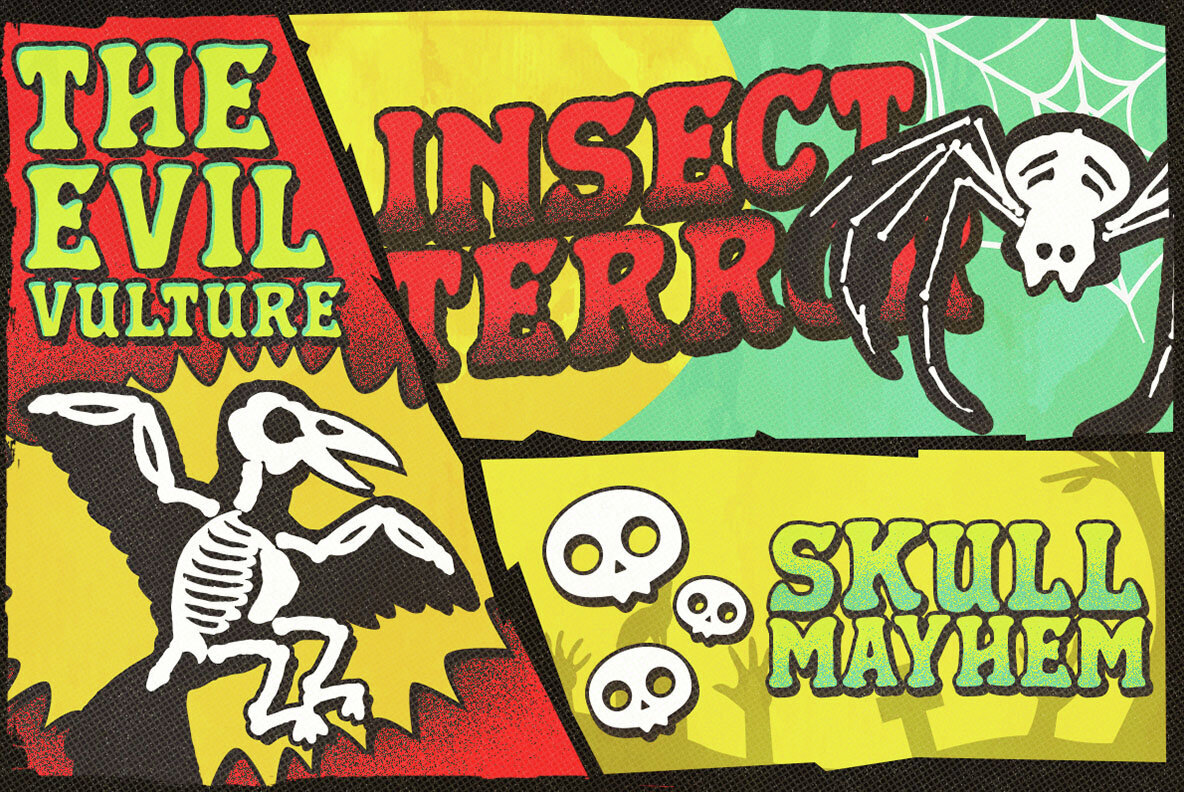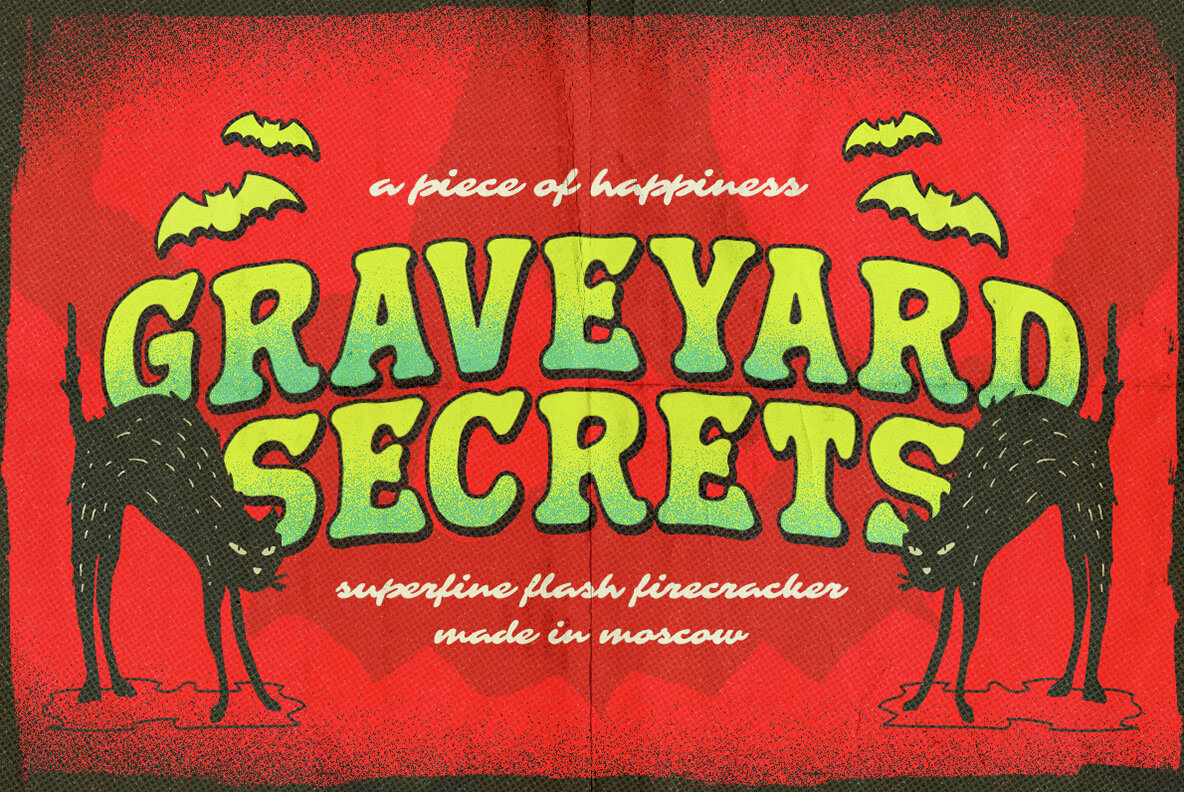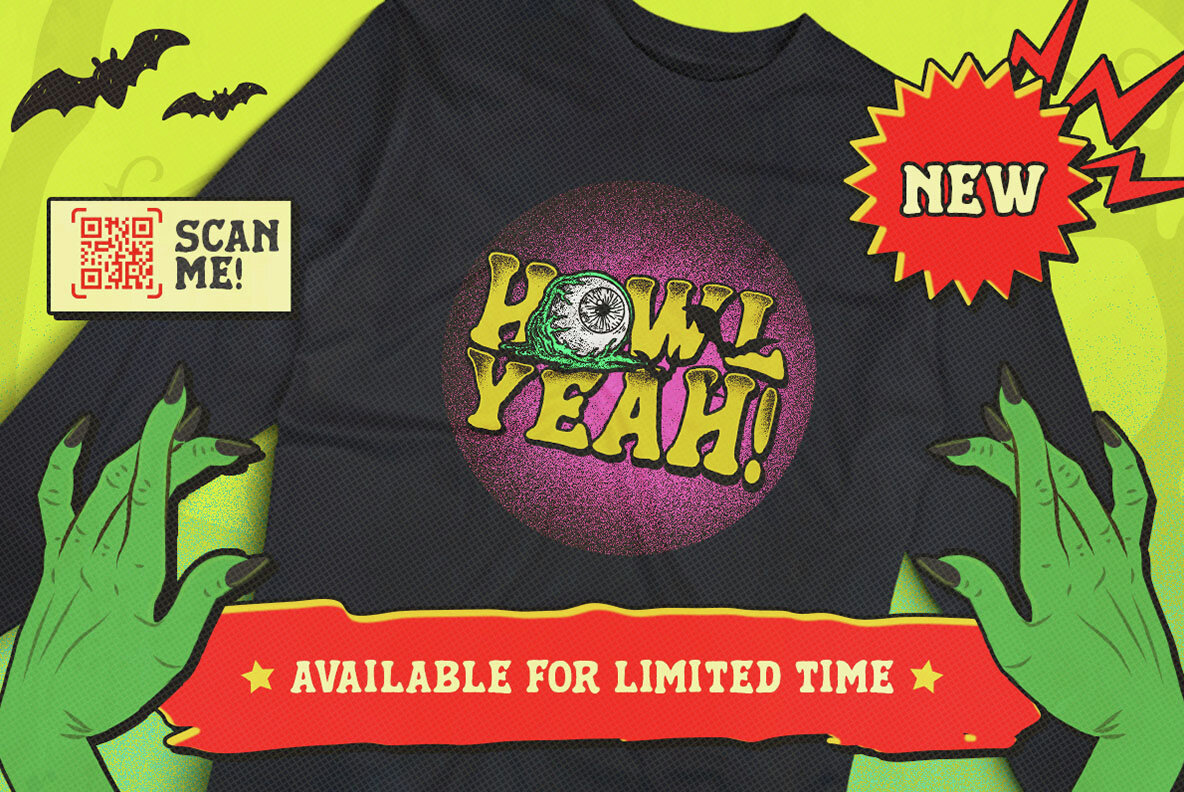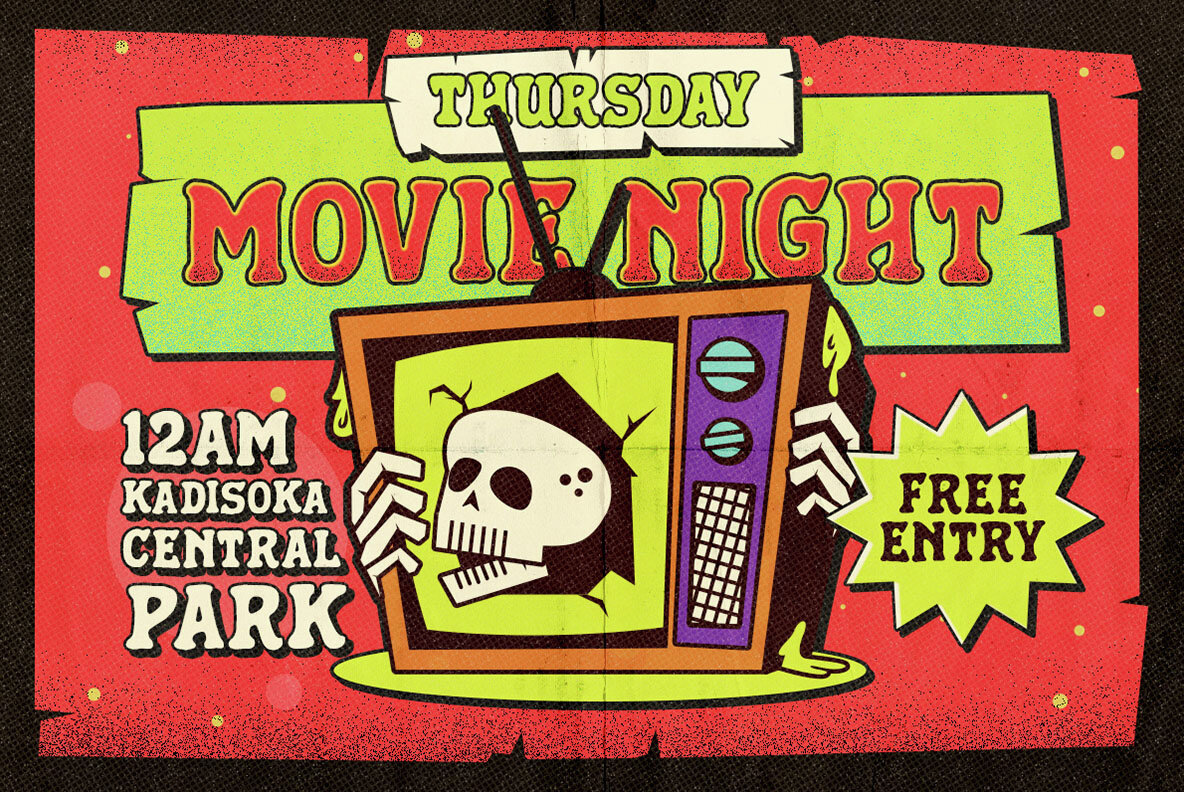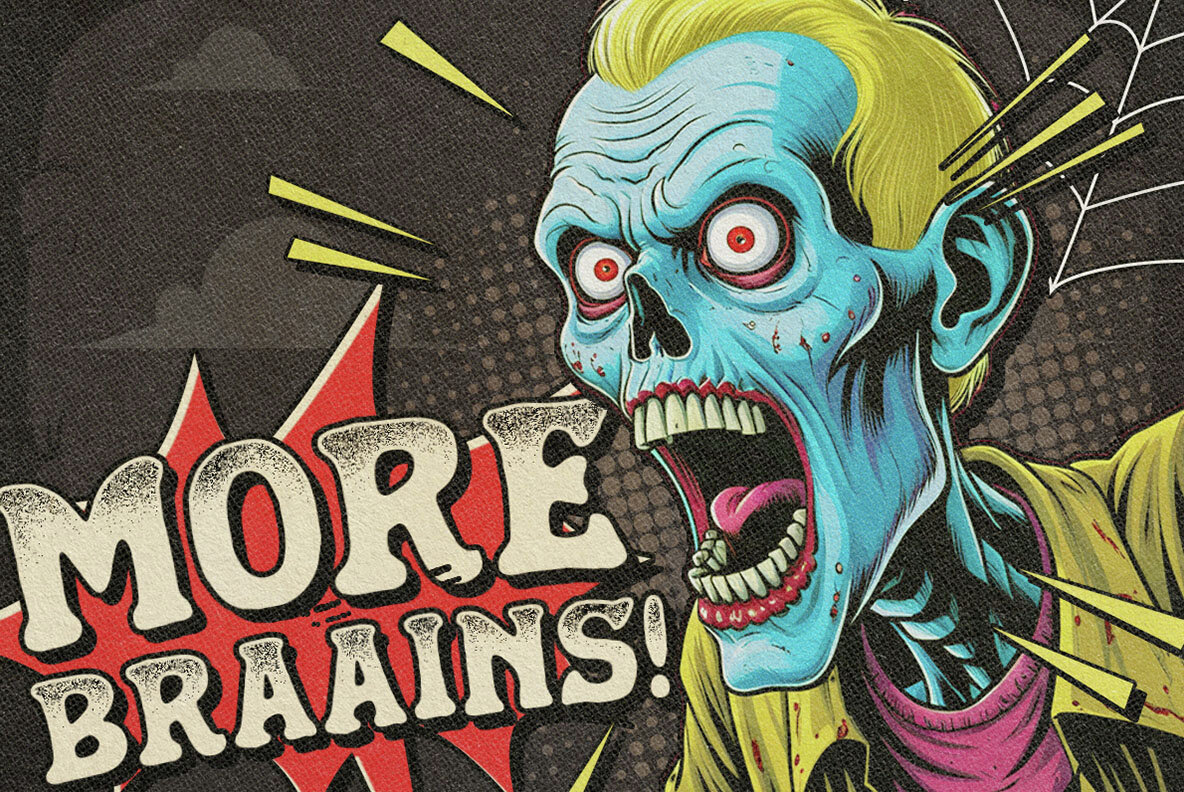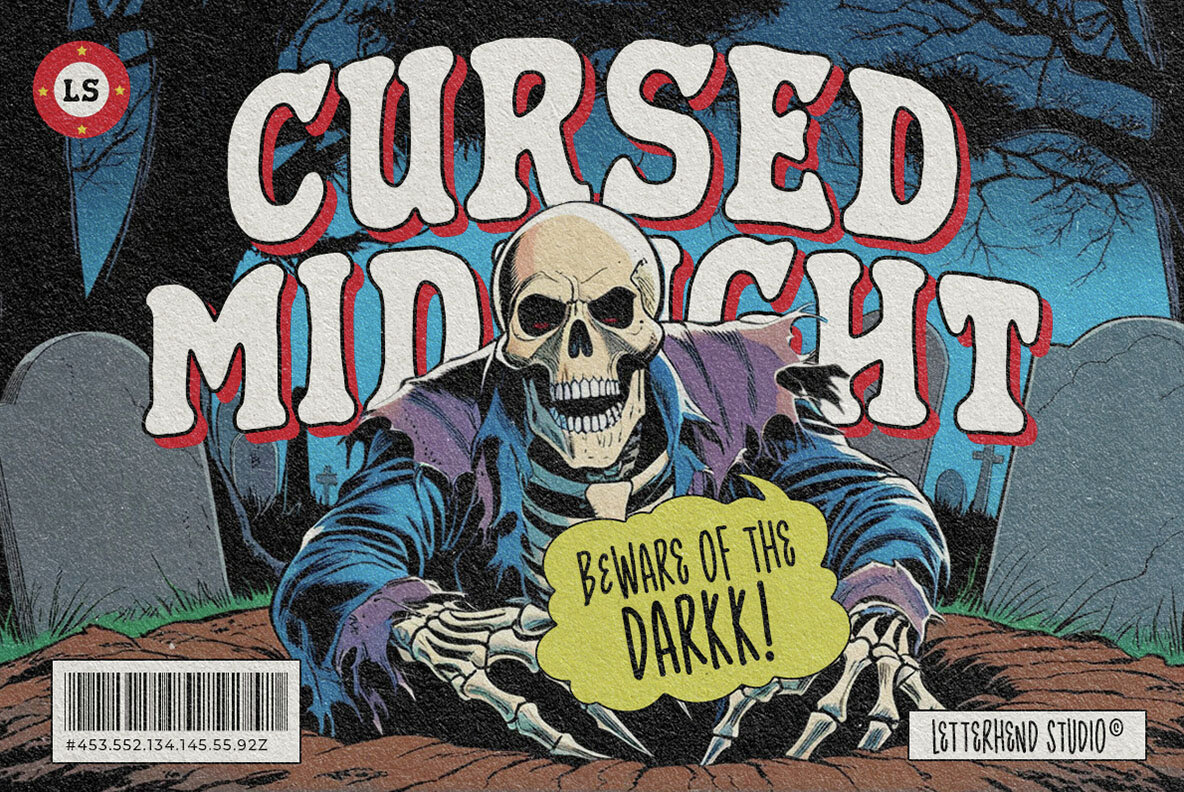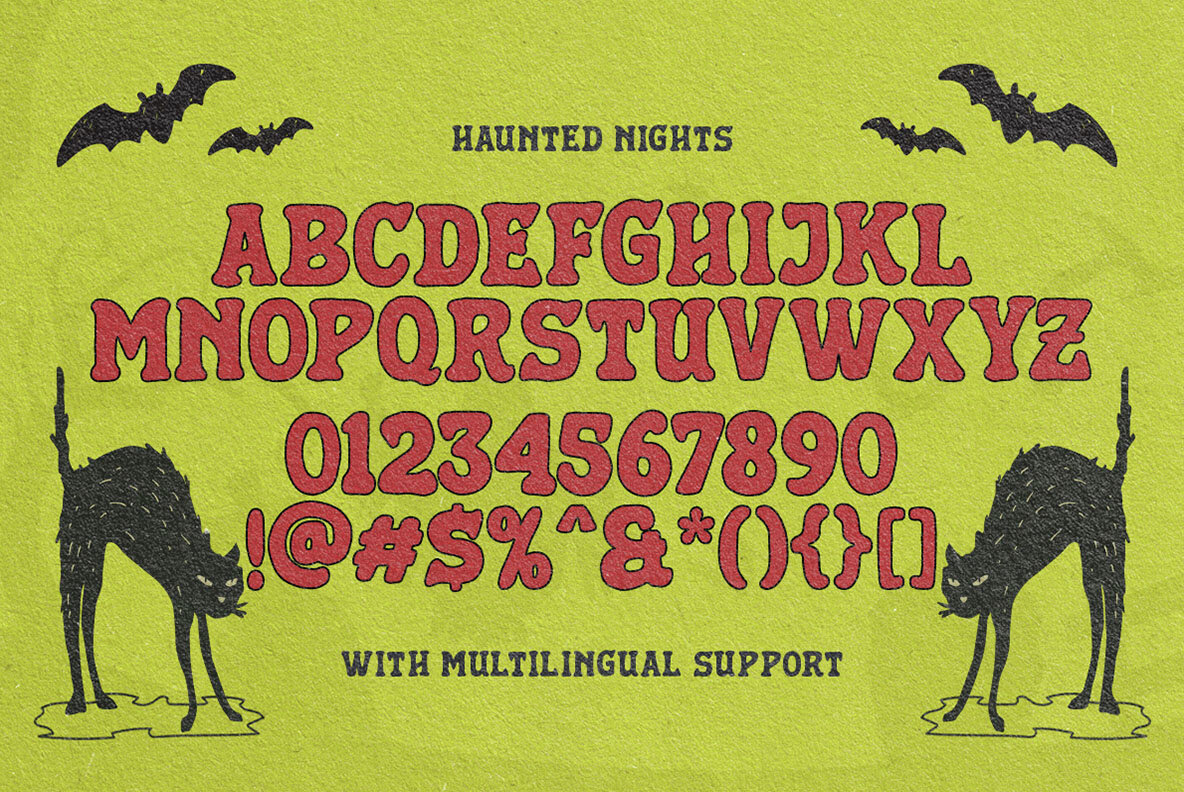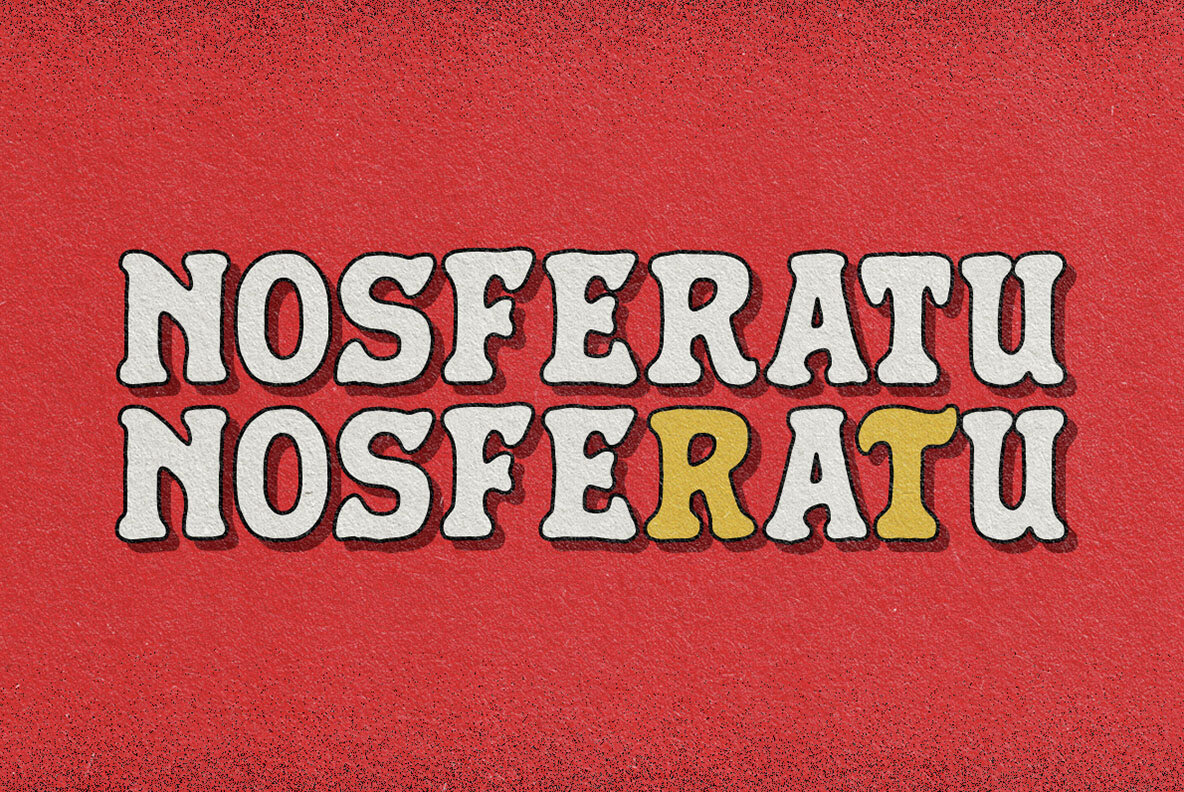
Haunted Night Font
Haunted Night
Haunted Night is a bold display font with classic letterform. This font perfectly made to be applied especially in logo, and the other various formal forms such as invitations, labels, logos, magazines, books, greeting / wedding cards, packaging, fashion, make up, stationery, novels, labels or any type of advertising purpose. We highly recommend using a program that supports OpenType features and Glyphs panels like many of Adobe apps and Corel Draw, so you can see and access all Glyph variations.